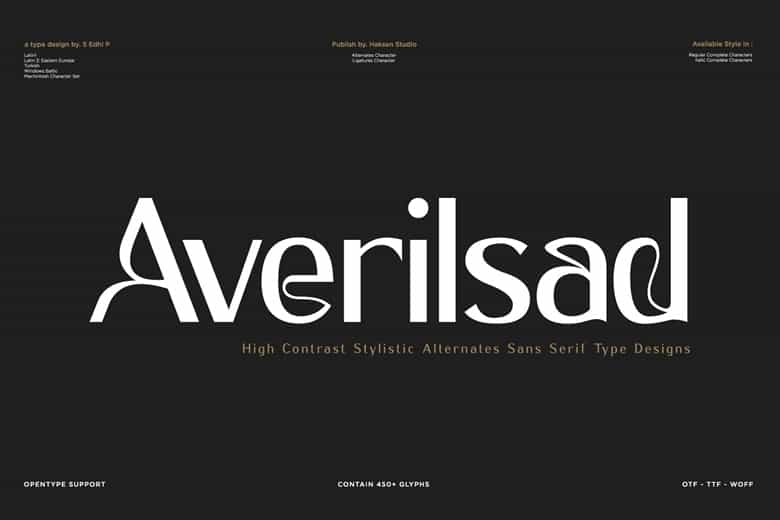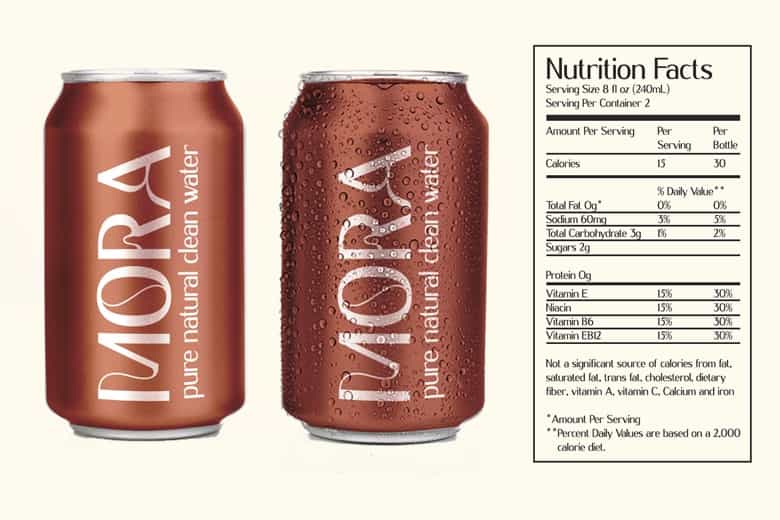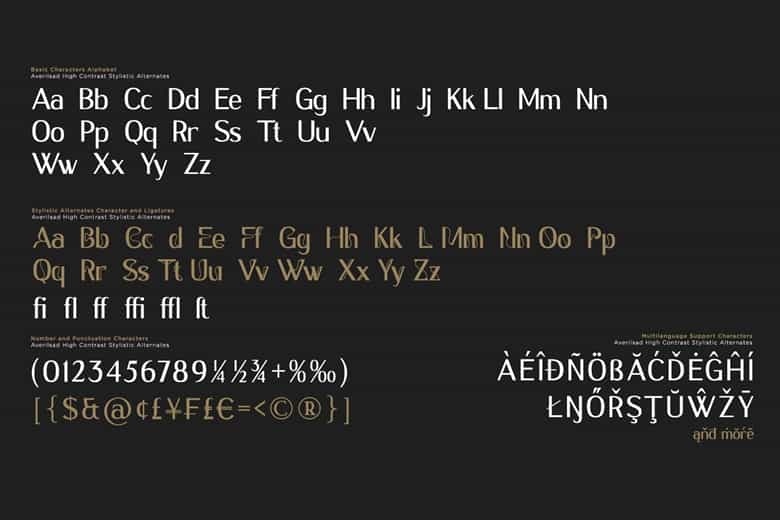
Averilsad is a good-looking and adaptable sans serif typeface that can help you brand with elegance and simplicity. Thanks to its clean lines and true proportions, Averilsad fits perfectly in logos, for packaging, in editorial work, online and more.